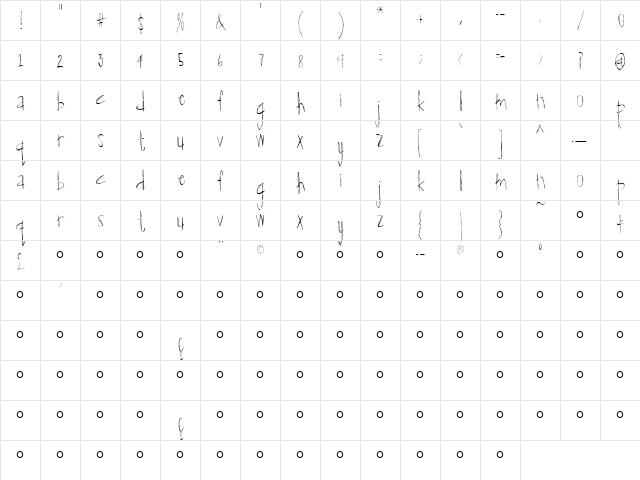
SplitlevelHouse Medium
Design Context for SplitlevelHouse Typeface
SplitlevelHouse is a composed and adaptable typeface that performs quietly and consistently across a wide range of design contexts.
Pro Tip: Use SplitlevelHouse in both headline and body roles to test its range before committing to a single application.